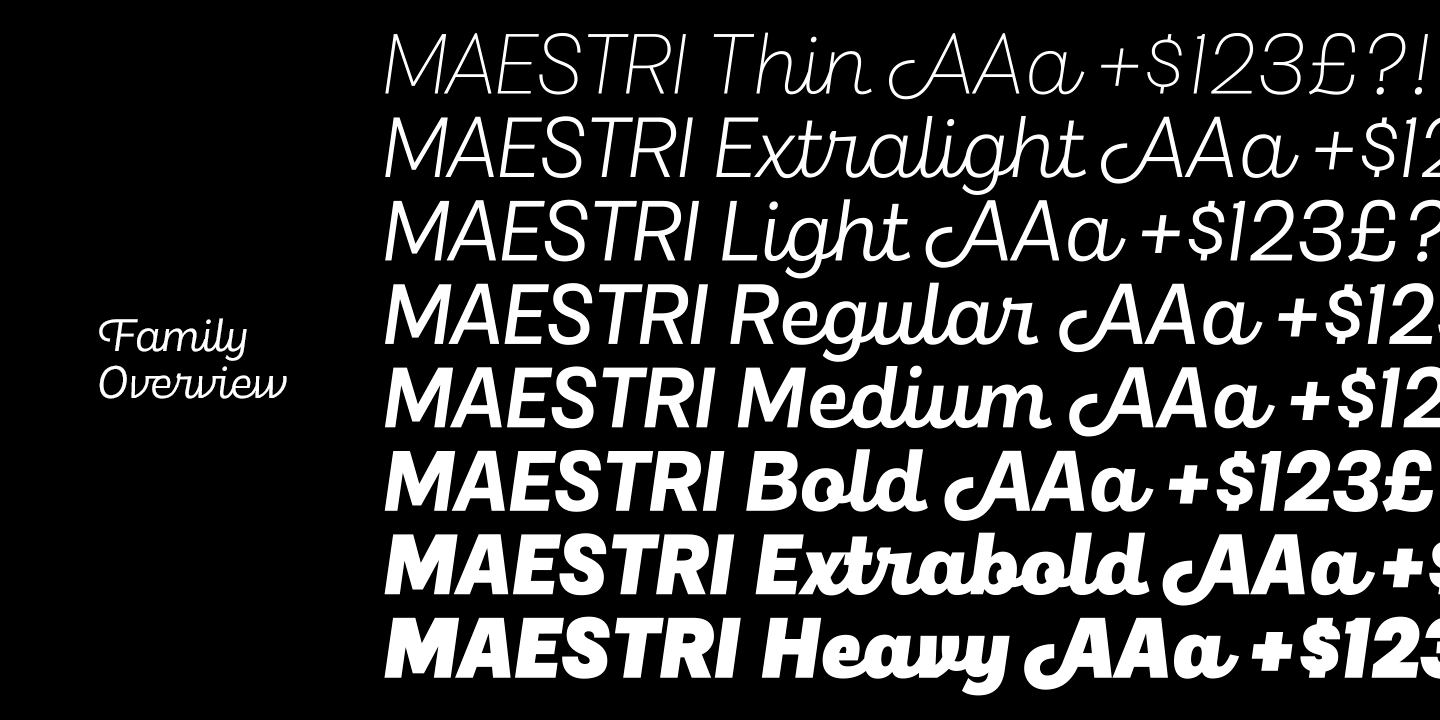
About Maestri
Ciao! This is Maestri ? a connected script family of eight weights, from thin to heavy. Maestri is initially a sans serif made into a script, hence the design that\’s strict, clean and sharp. The formal approach gives it a touch of cool elegance ? yet…